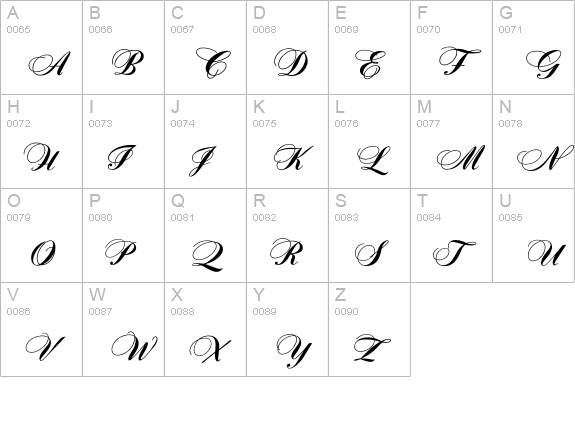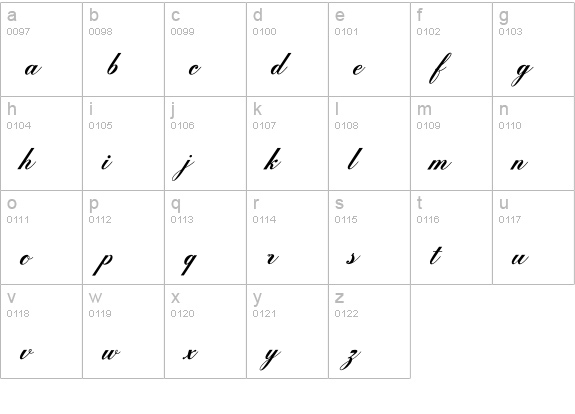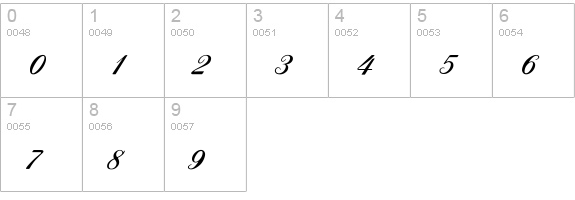
OPTIZither Font Details
OPTIZither font is a beautifully crafted typeface that exudes elegance and sophistication. Its sleek lines and modern design make it perfect for a wide range of projects, from branding to editorial design. The font features a unique blend of sharp angles and smooth curves, giving it a distinctive and eye-catching look. Best of all, OPTIZither is available for free download at FontsMarket.com. This means you can easily access this stunning font and use it in your designs without any cost. Whether you're working on a personal project or a professional assignment, OPTIZither font is sure to elevate your work and make a lasting impression. Download this exceptional font today and unleash your creativity with its sleek and stylish design.